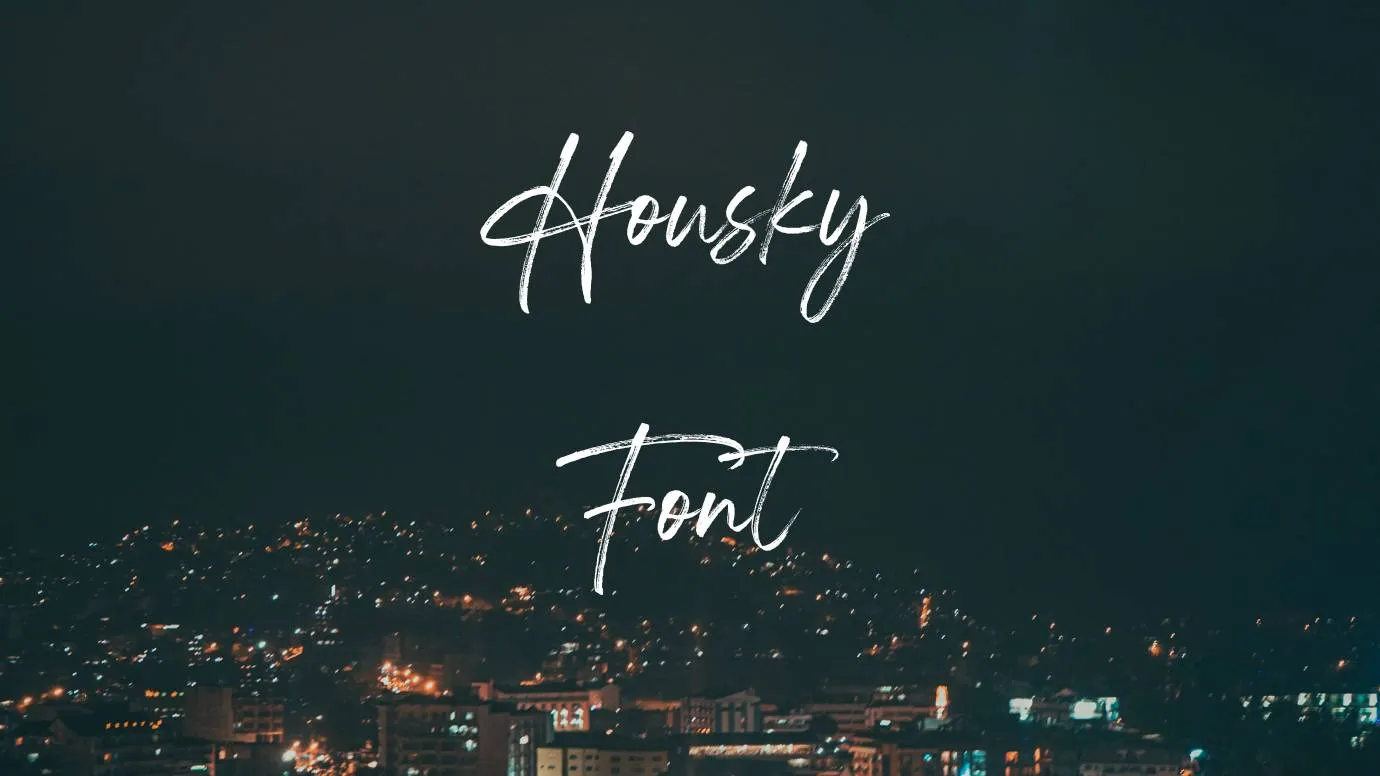
Housky Font Family has an elegant look and lies in the category of the brush family. The first and main designer is Megi Satyo Widodo that is an intelligent font designer.
This gorgeous font has handmade and natural look characters including upper and lowercase letters. This handwritten texture that is available with a distinctive and sharp texture brush makes designs outstanding.
Housky Font